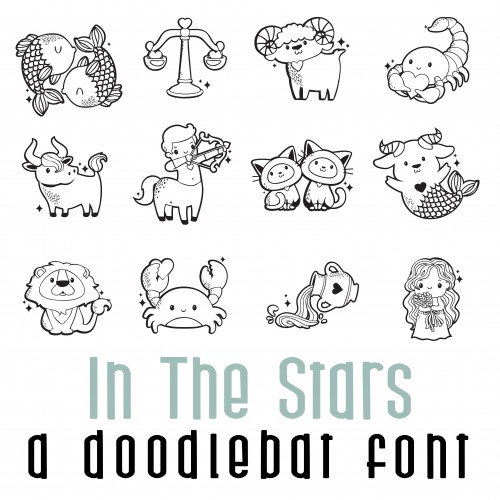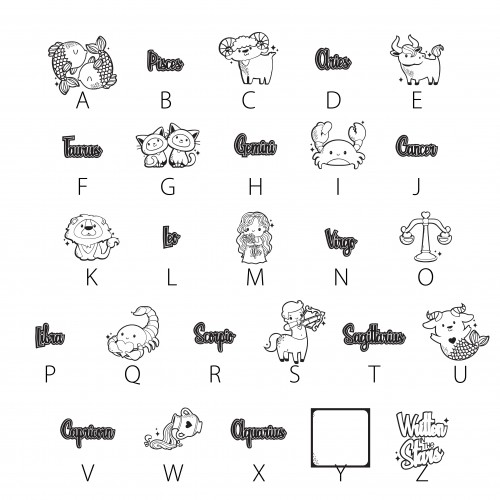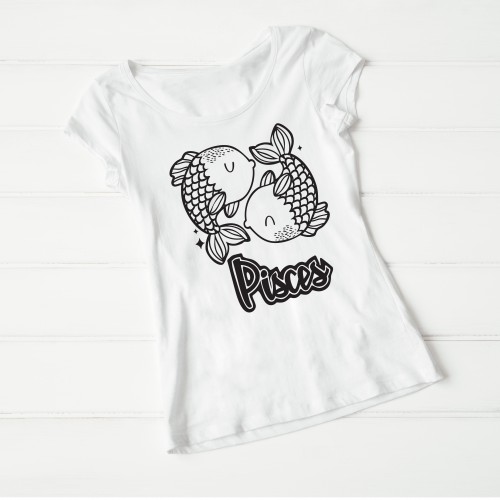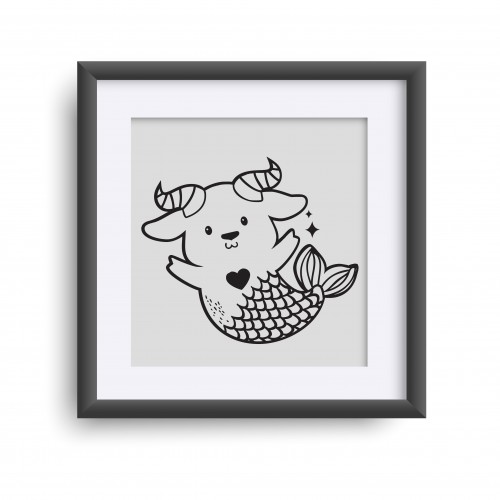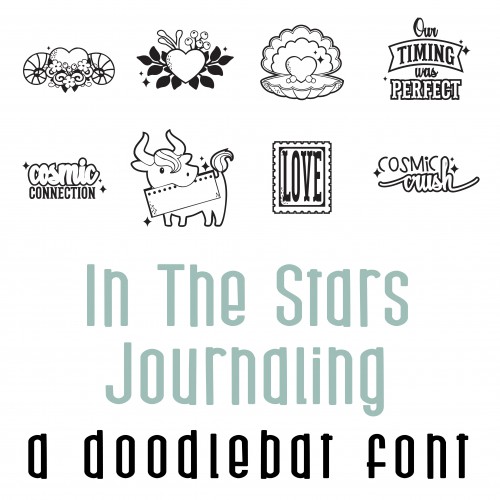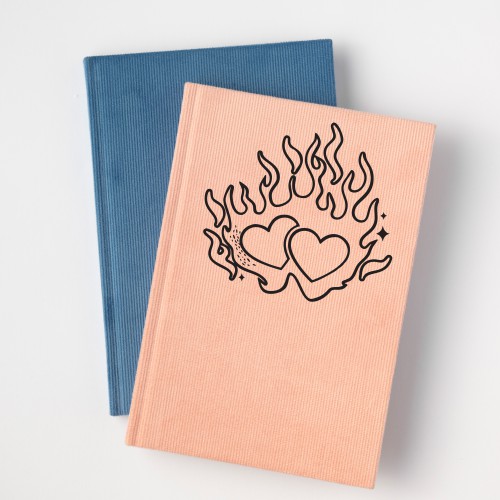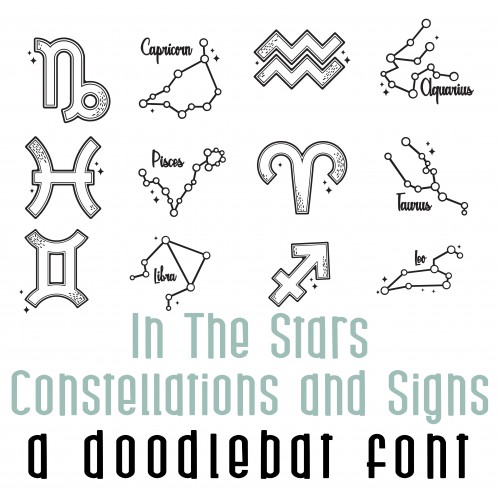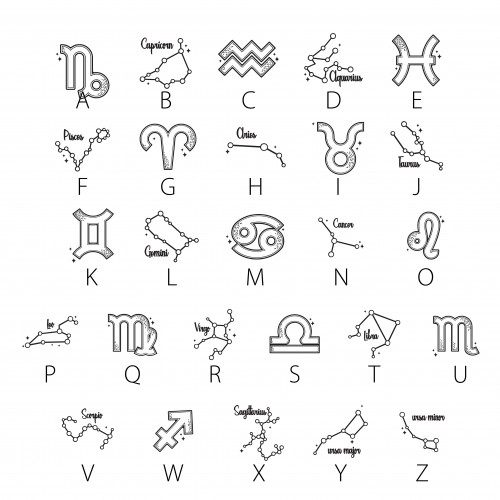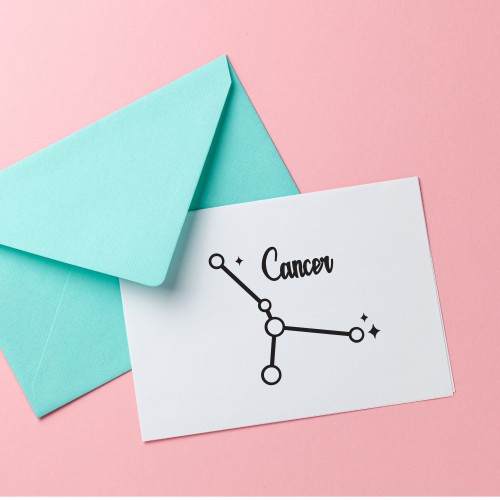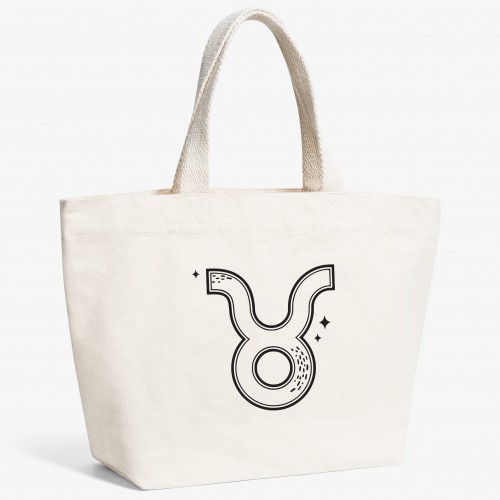
In The Stars - Big Bundle
This adorable cosmic bundle features kawaii style zodiac images and words, journaling elements, constellations and signs, perfect for cards, crafts, gifts, planner stickers, calendars, scrap book pages, classrooms and more!
DB In The Stars - DB
This adorable cosmic doodlebat font features 26 kawaii style zodiac images and words perfect for car..
DB In The Stars - Journaling - DB
This adorable cosmic doodlebat font features 26 journaling and love imagery coordinating with our I..
DB In The Stars - Constellations and Signs - DB
This cosmic doodlebat font features 26 zodiac constellations and signs perfect for cards, crafts, gi..
In The Stars - GS
This adorable cosmic graphic set features 26 kawaii style zodiac images and words perfect for cards,..
In The Stars - CS
This adorable cosmic cuttable graphic set features 26 kawaii style zodiac images and words perfect f..
In The Stars - Journaling - GS
This adorable cosmic graphic set features 26 journaling and love imagery coordinating with our In ..
In The Stars - Journaling - CS
This adorable cosmic cuttable graphic set features 26 journaling and love imagery coordinating wit..
In The Stars - Constellations and Signs - GS
This cosmic graphic set features 26 zodiac constellations and signs perfect for cards, crafts, gifts..
In The Stars - Constellations and Signs - CS
This cosmic cuttable graphic set features 26 zodiac constellations and signs perfect for cards, craf..
In The Stars - PP
This beautiful paper pack coordinates with our In The Stars Collection...
In The Stars - AL
This beautiful alphabet coordinates with our In The Stars Collection...